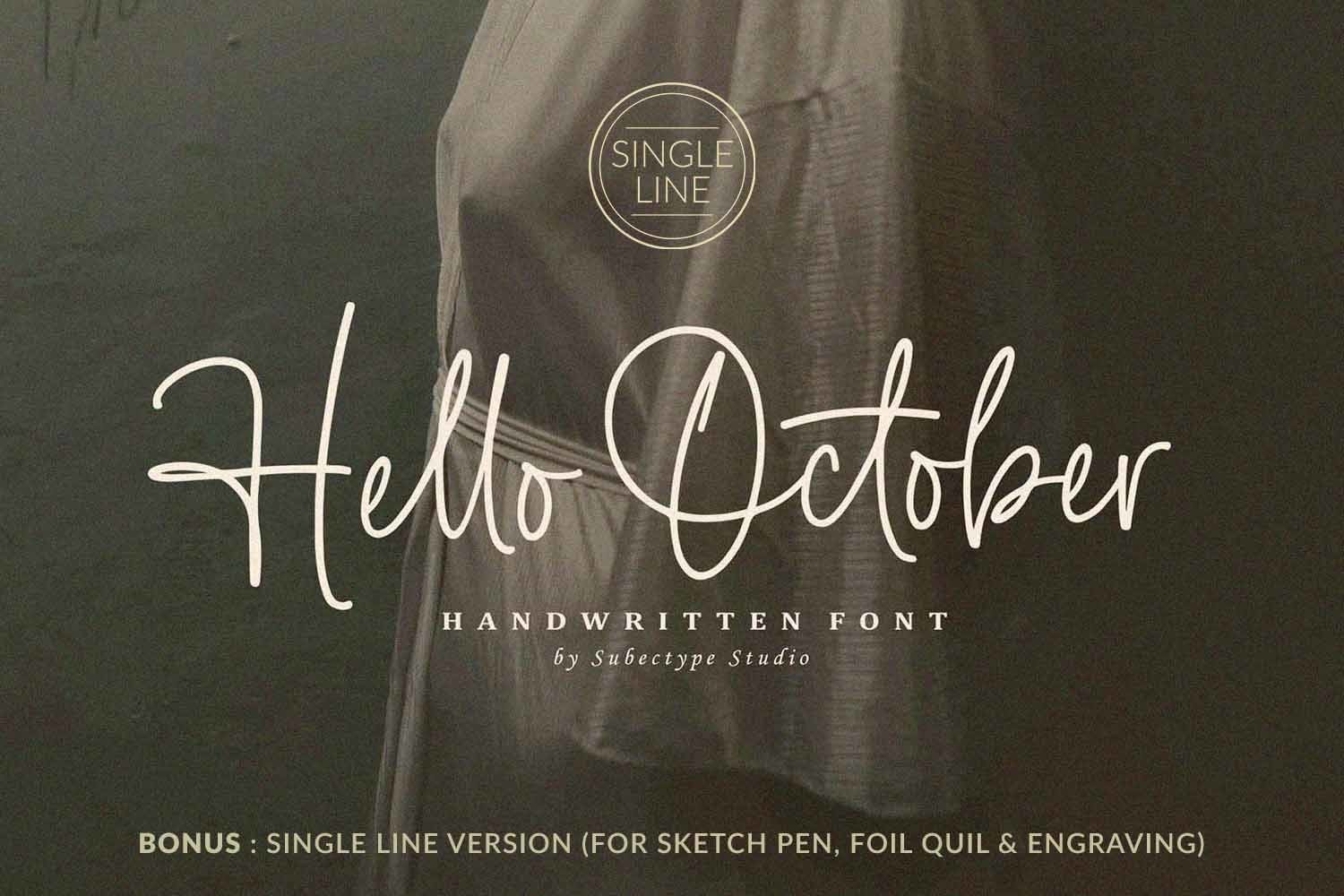
Hello October is an authentic handwritten font with a romantic touch. Masterfully designed to become a true favorite, this font has the potential to bring each of your creative ideas to the highest level!